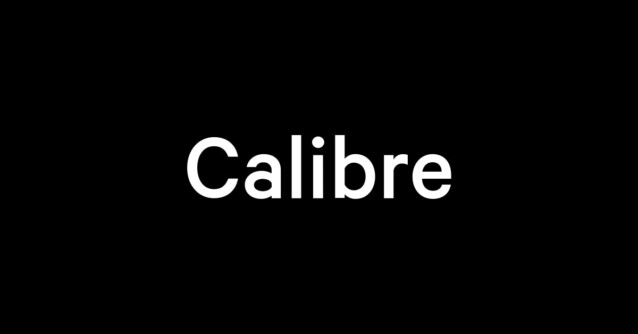
Calibre Font Family
Calibre Font Family is a new carefully crafted variable neo-grotesk font family. Unlike most engineered lettering for signage, these letterforms are elegant and clear. Calibre gently tempers the engineer’s geometric tendencies by applying typographic principles of optical correction. Many sanserif letterforms are “pan-genre”. The shapes of a few key letterforms establish the specific subgenre of the sanserif. Calibre takes the rationality from Nebiolo’s Recta, resulting in a contemporary and crisp finish. Calibre was designed alongside Metric. They share a fundamental geometry but differ in the finish of key letterforms.